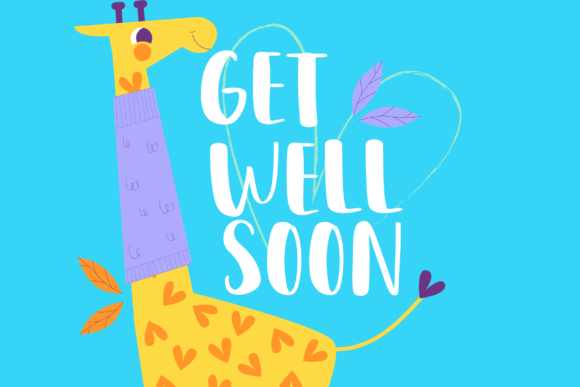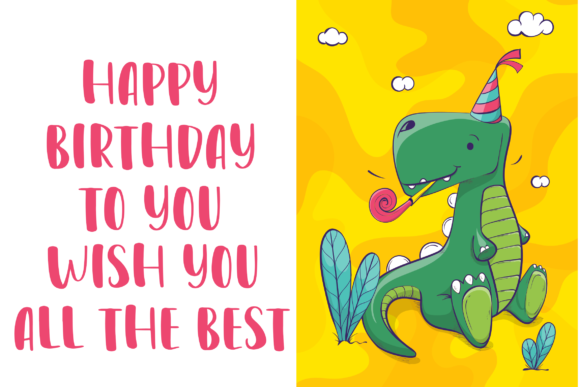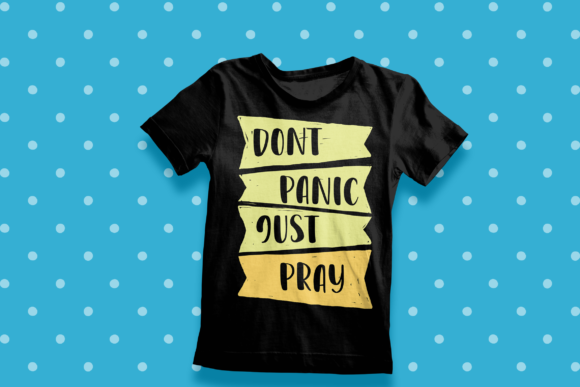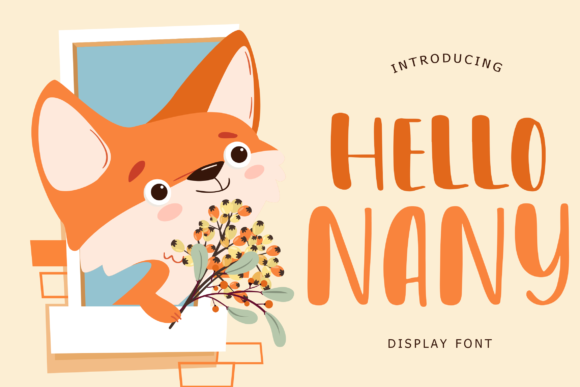
Introduction to Hello Nany Font
Hello Nany is a cute display font.
It features a sweet and whimsical style that makes it perfect for school and children projects Take your designs to the next level with this beautiful typeface.
Hello Nany Font offers exceptional quality and versatility, making it a valuable addition to your design toolkit. Whether you’re creating for personal projects or commercial use, Hello Nany Font delivers professional results.